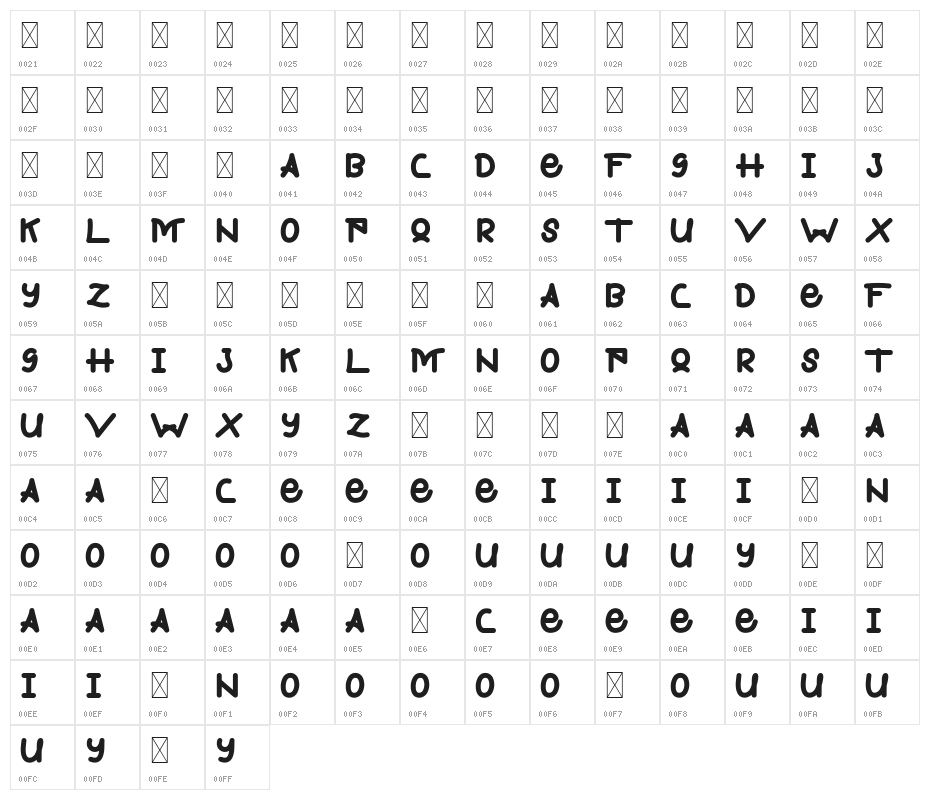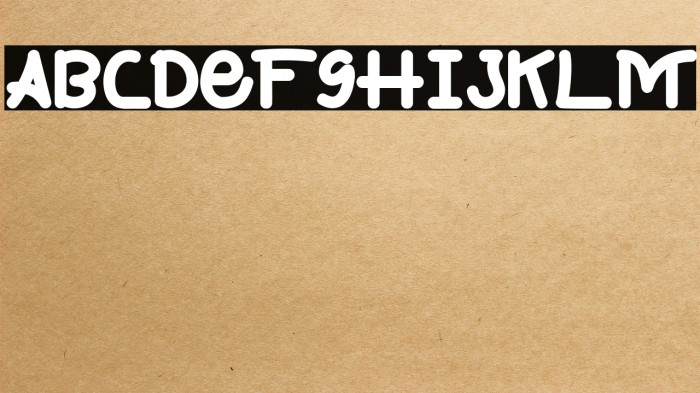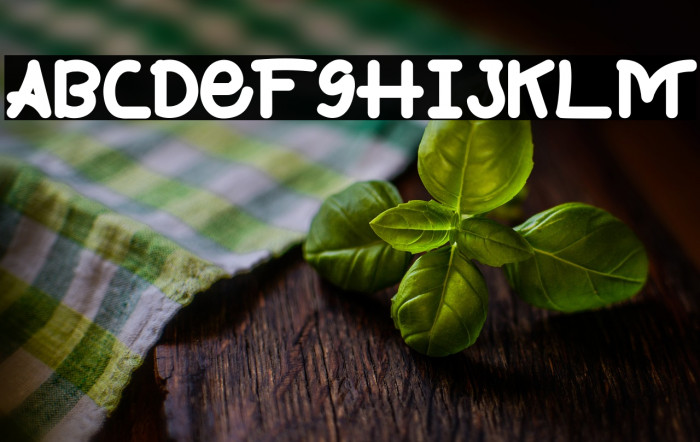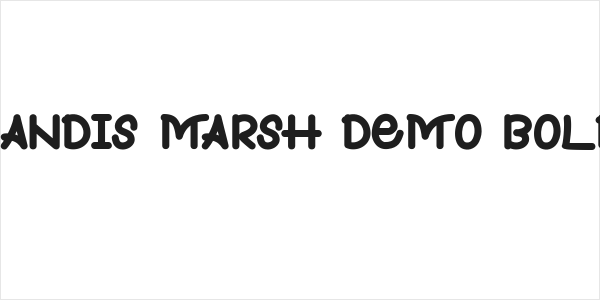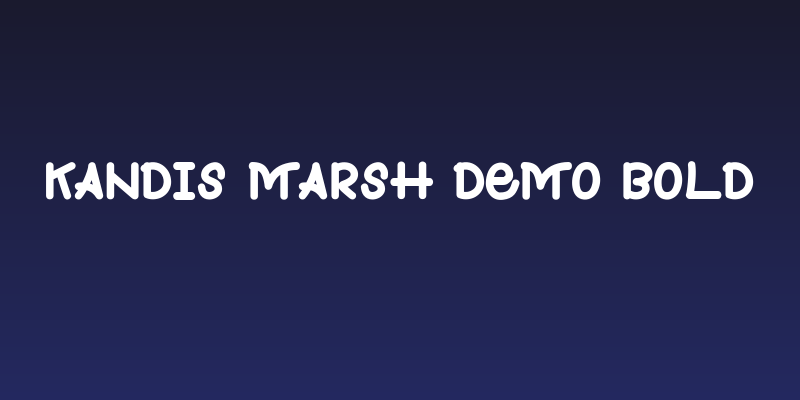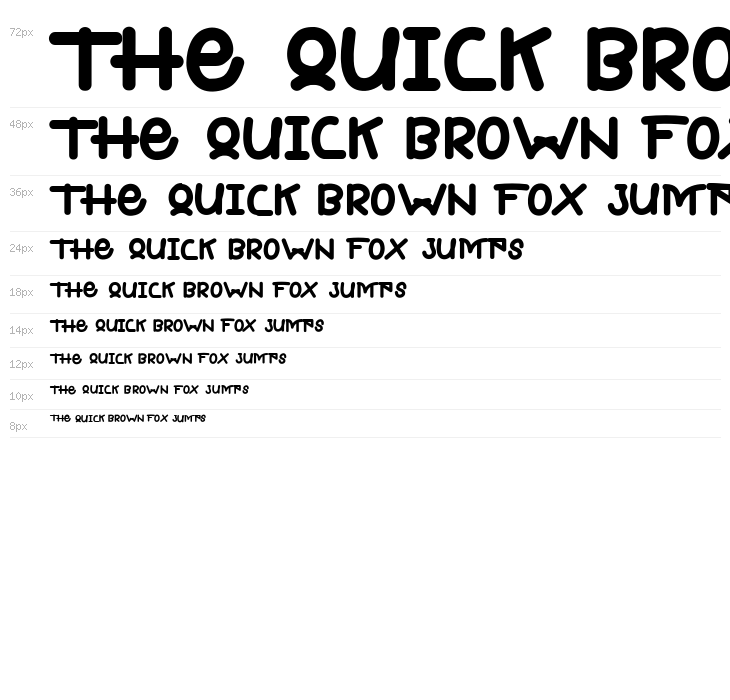
Kandis Marsh Demo Bold Font
Kandis Marsh Demo Bold Description
This font features a bold and playful design, characterized by thick, rounded strokes that give it a friendly and approachable appearance. The letters are slightly irregular, adding a whimsical touch to the overall style. The uppercase and lowercase letters maintain a consistent weight, ensuring readability while retaining a unique charm. The font's design is reminiscent of hand-drawn lettering, making it suitable for creative and informal applications. Its boldness ensures that it stands out, making it ideal for attention-grabbing headlines or titles.
| Proposed Projects | Ideal for children's book covers, playful branding, greeting cards, and creative posters. |